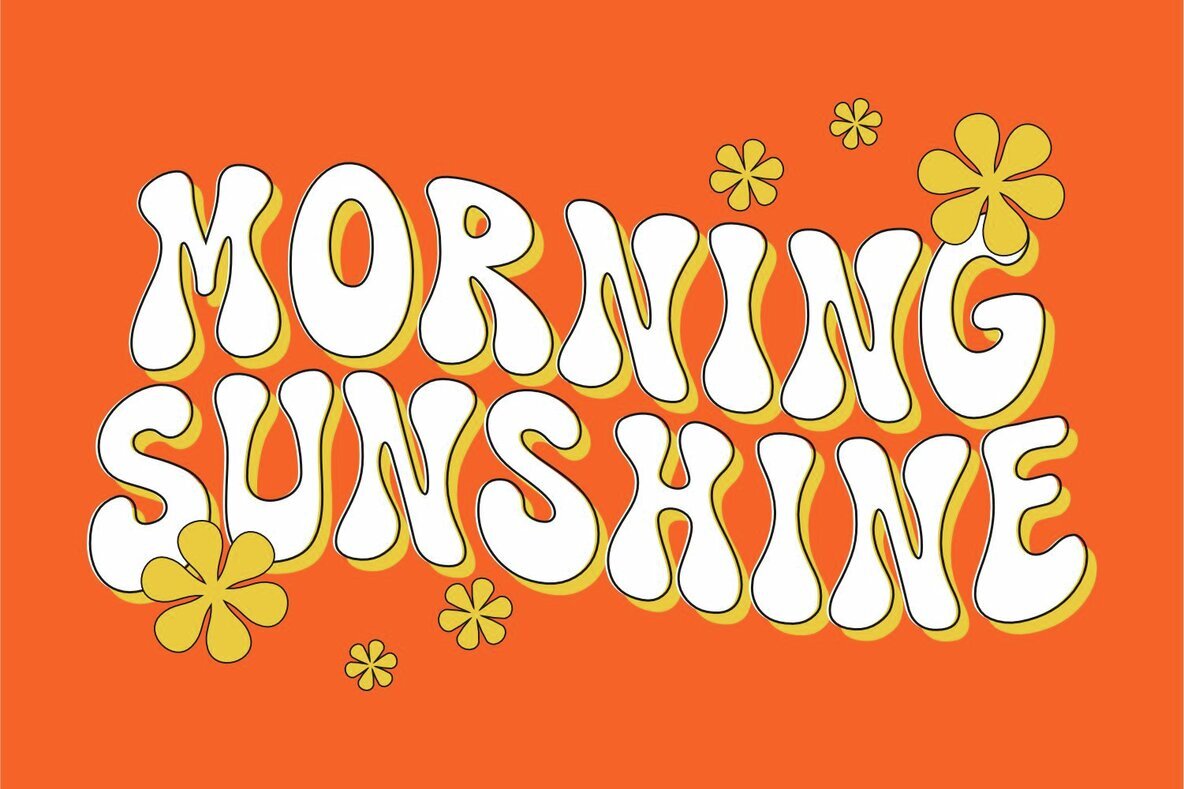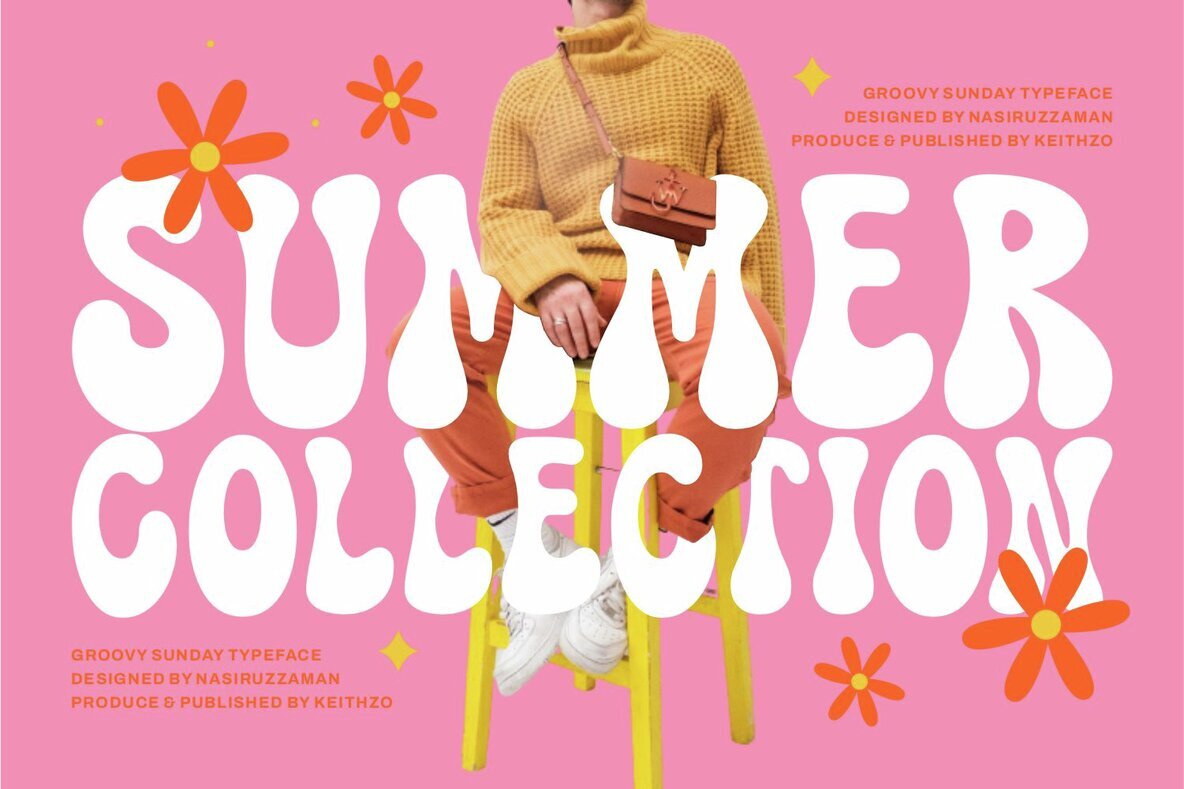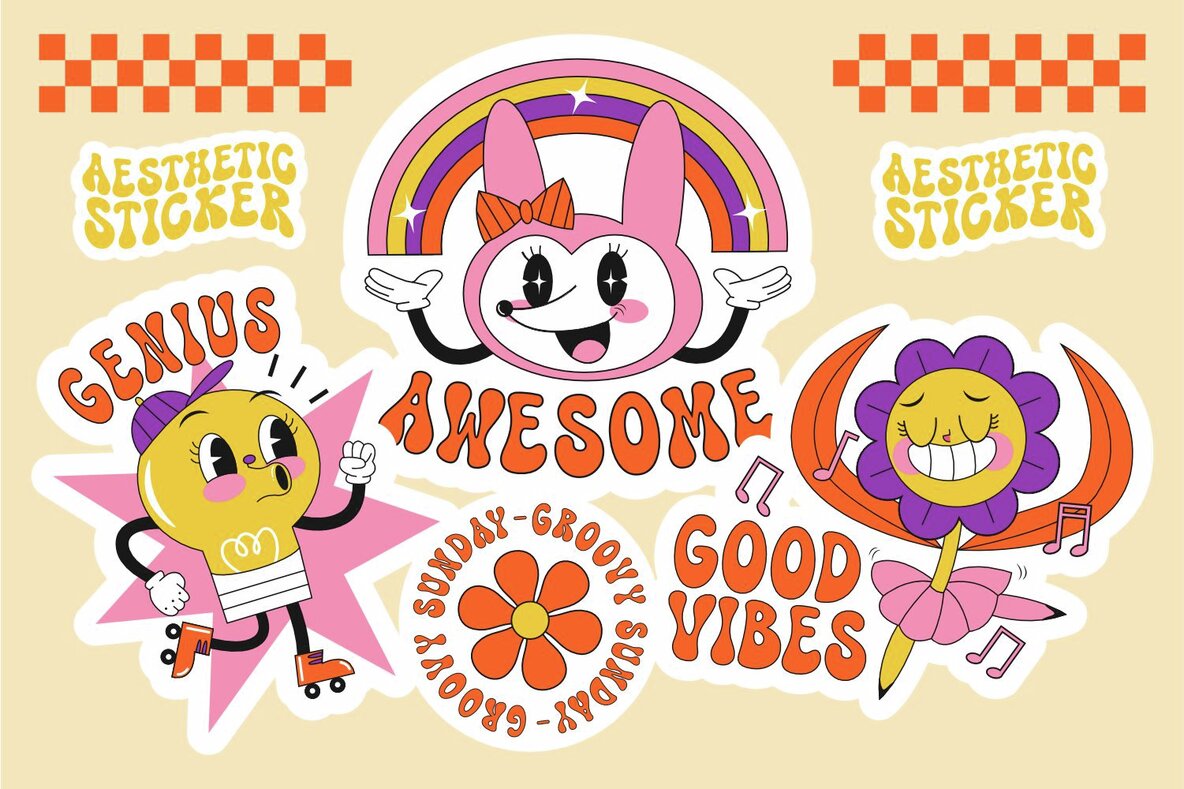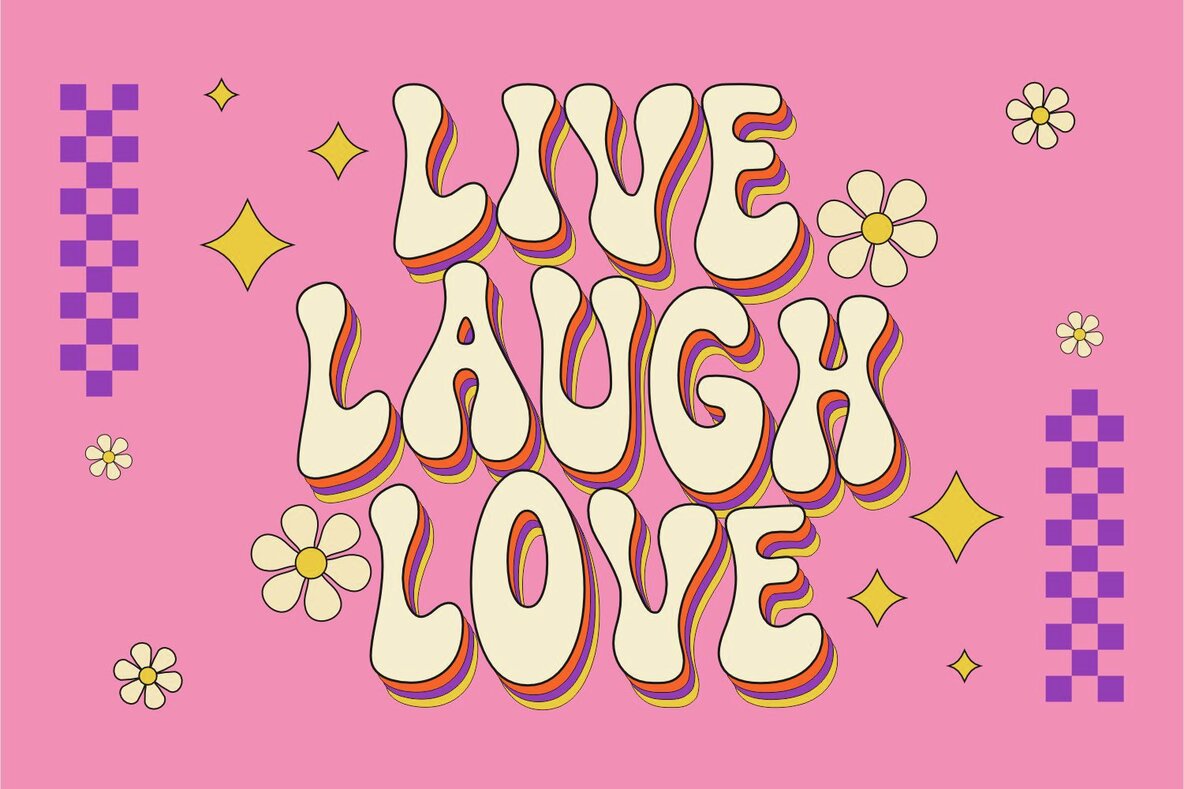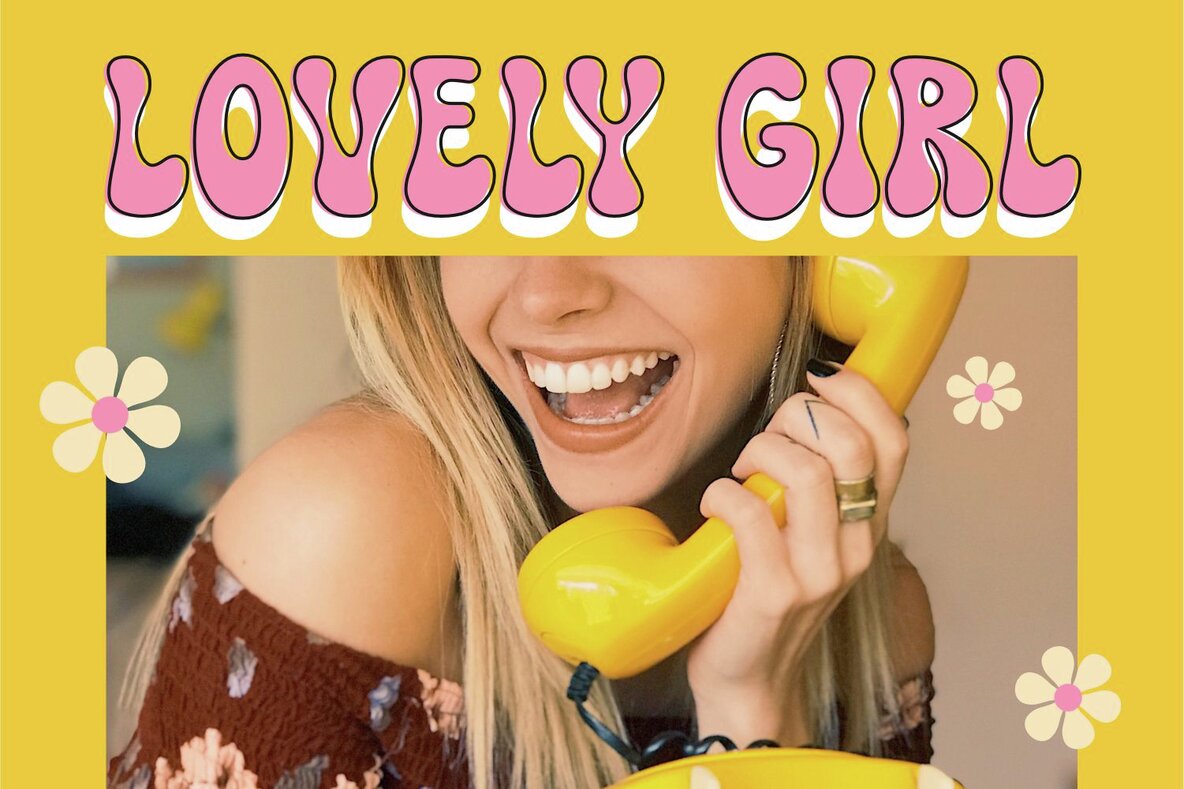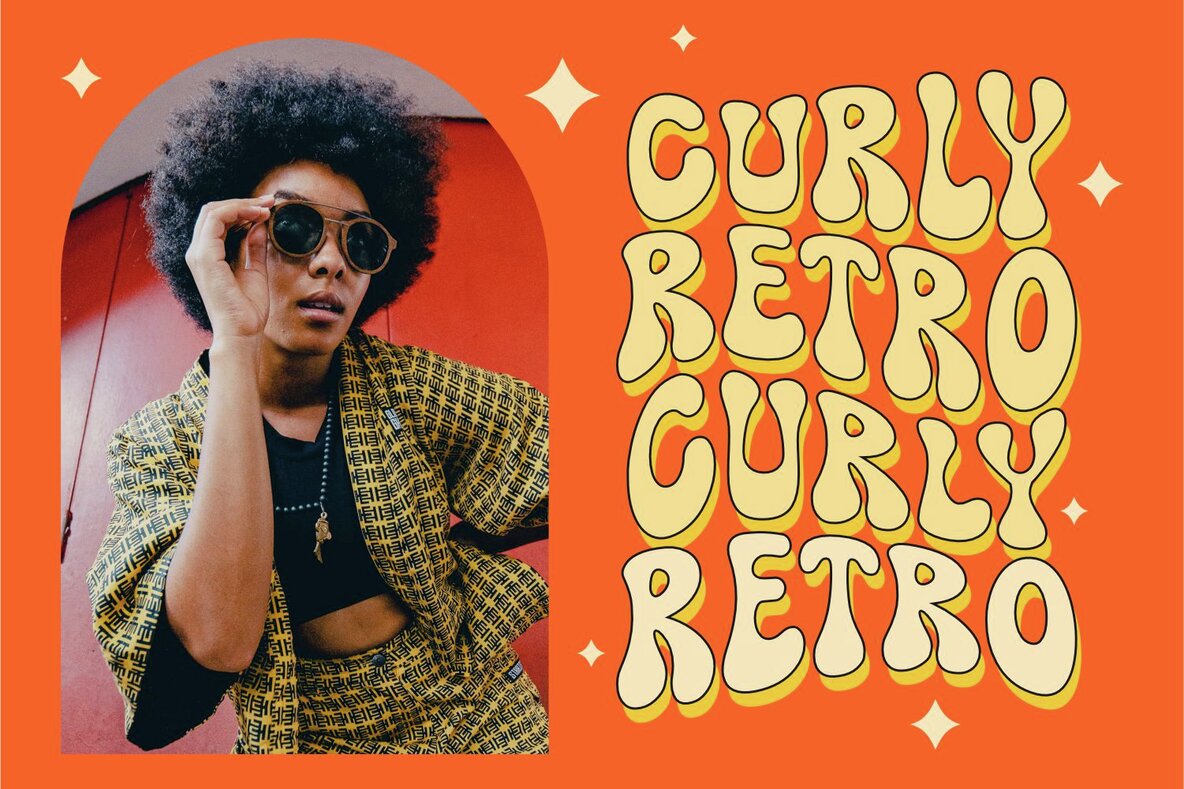
Groovy Sunday Font
Groovy Sunday
Groovy Sunday is a groovy and retro display font that takes you back to the psychedelic 70s. Its funky and curved letters with bold serifs create a lively and vibrant look that is perfect for posters, music covers, and designs that require a retro and energetic feel. Groove adds a touch of fun and nostalgia to any project.